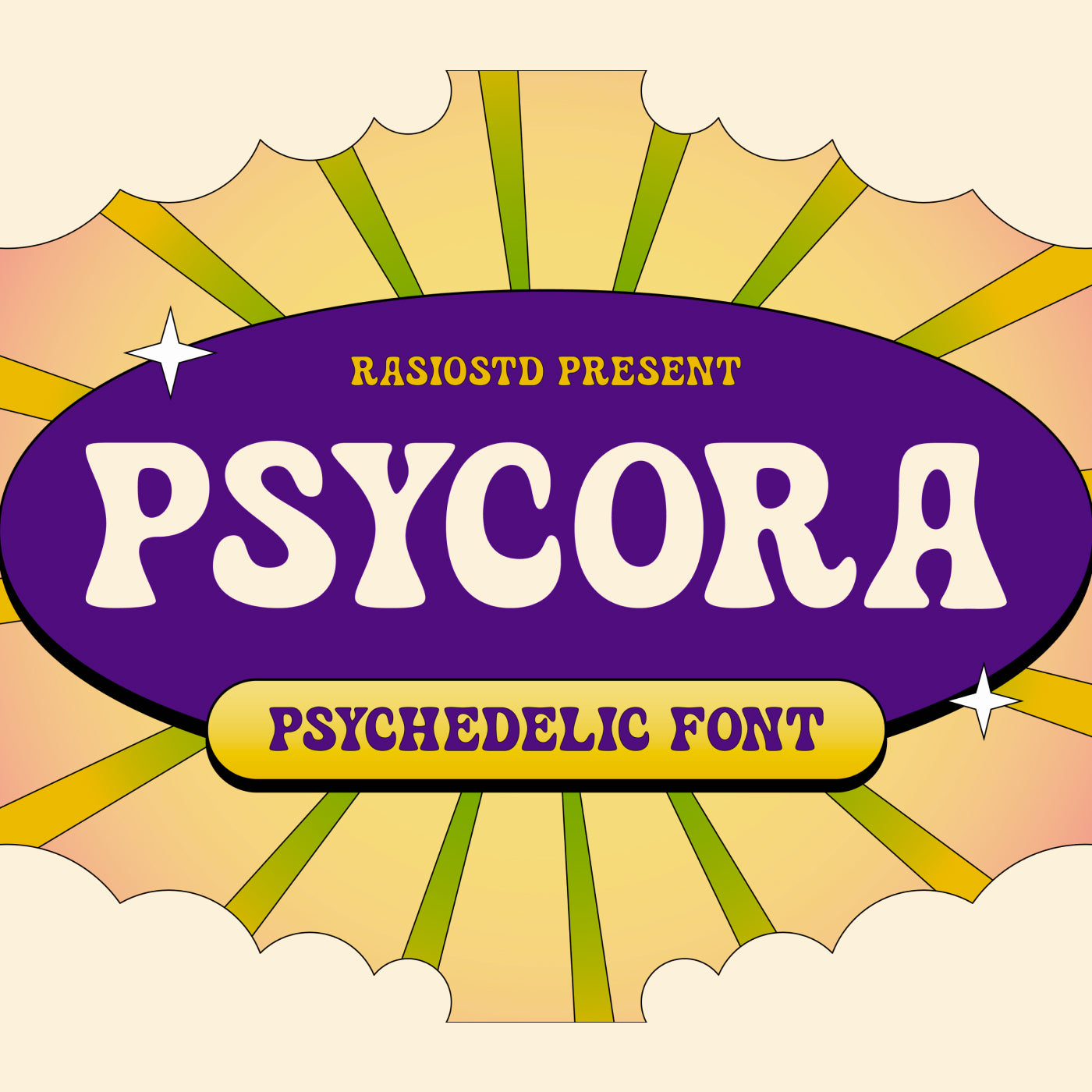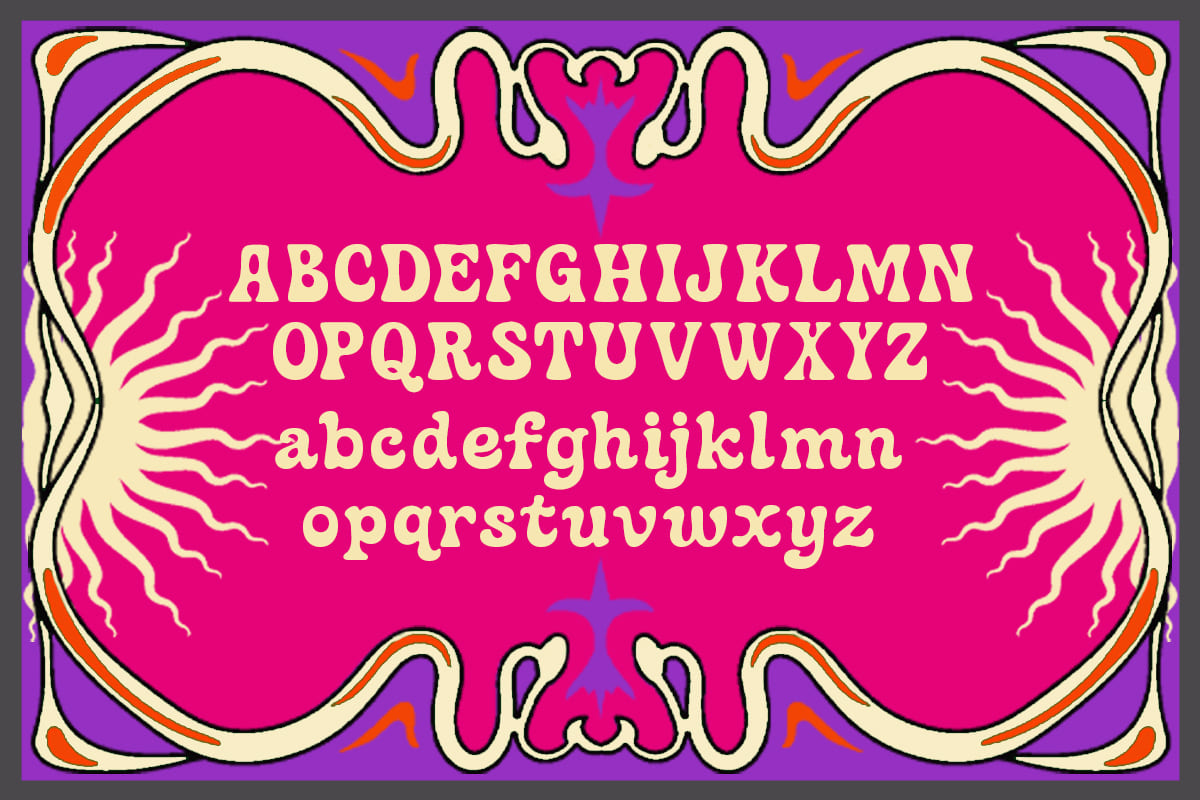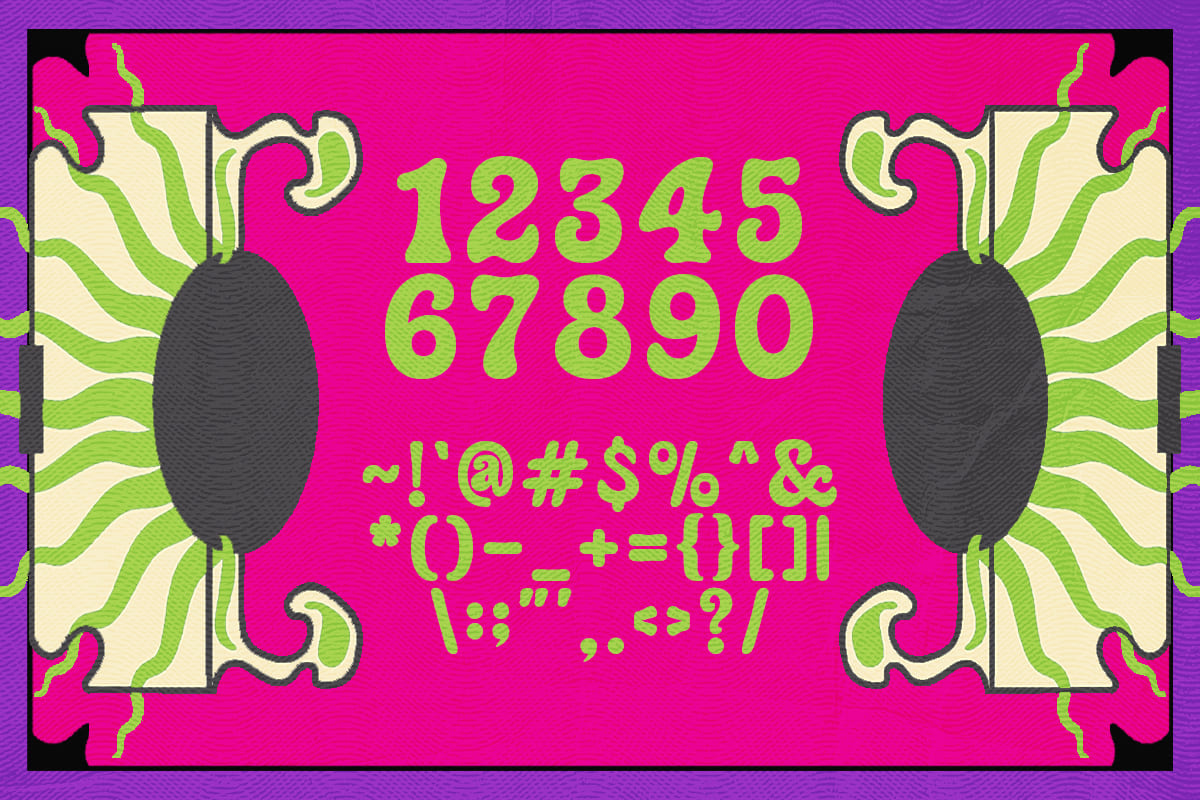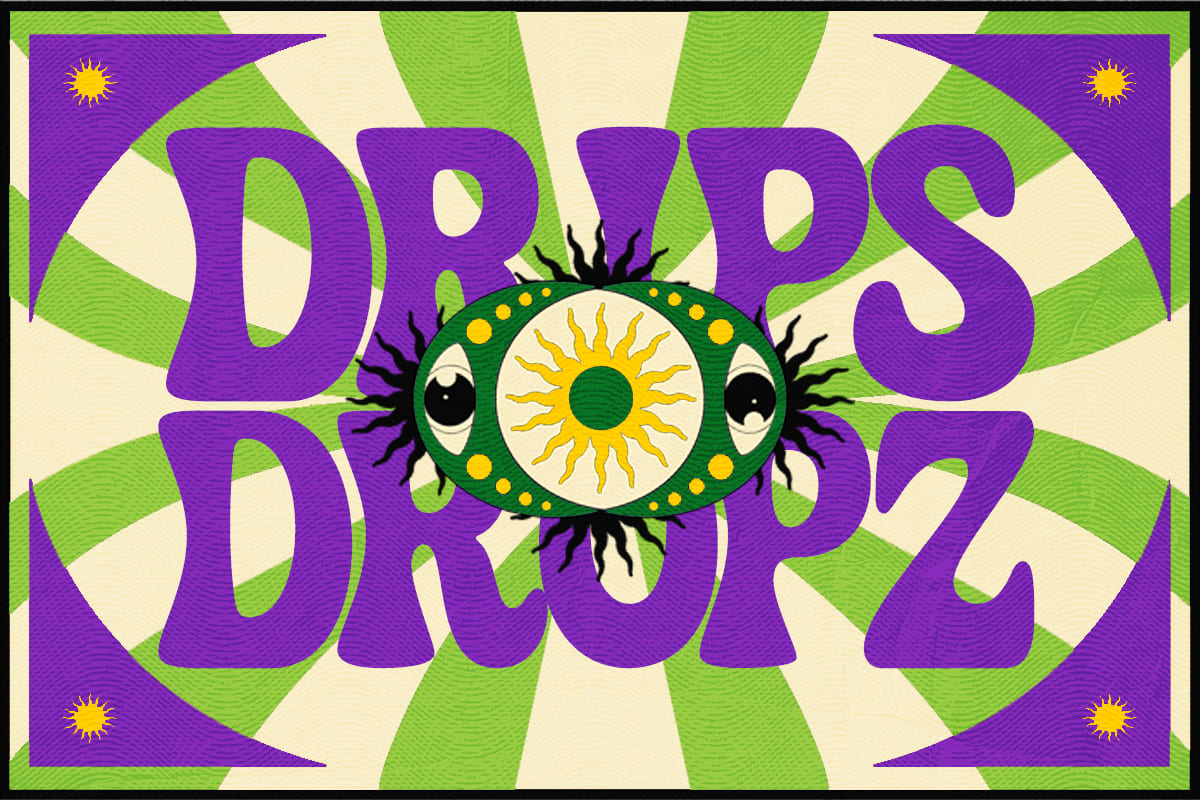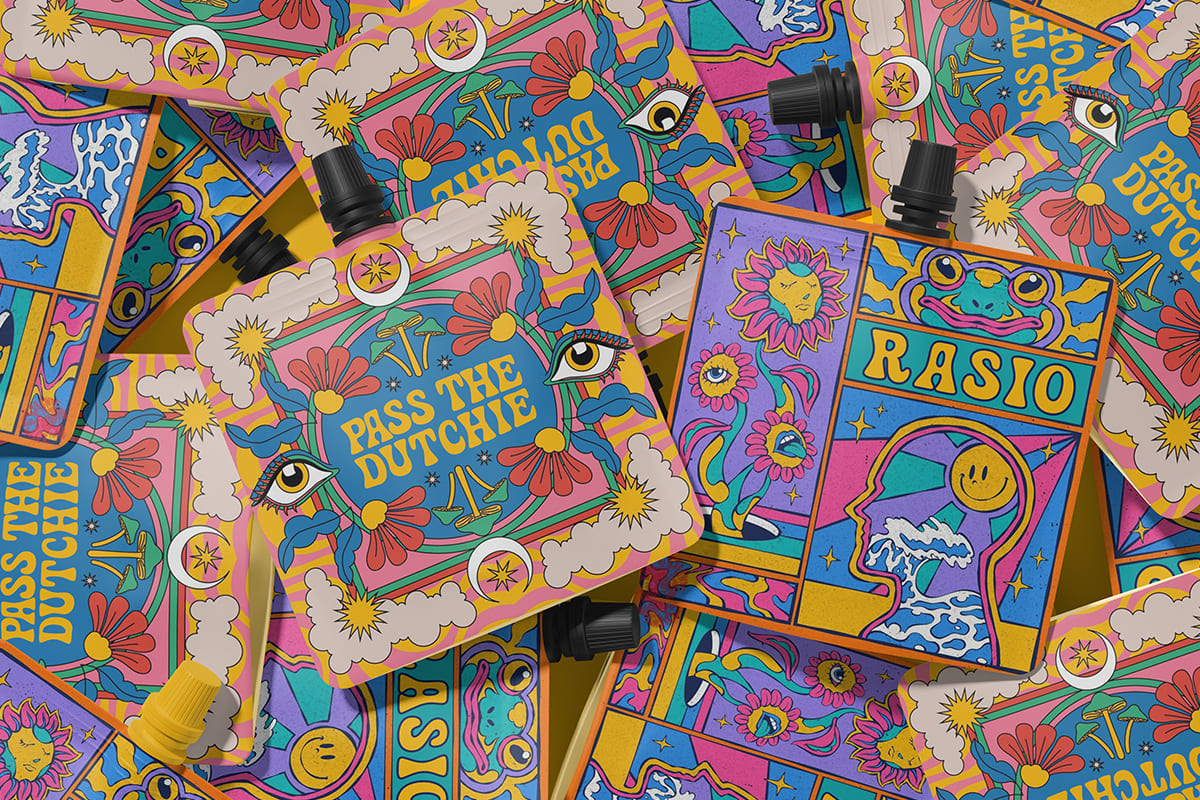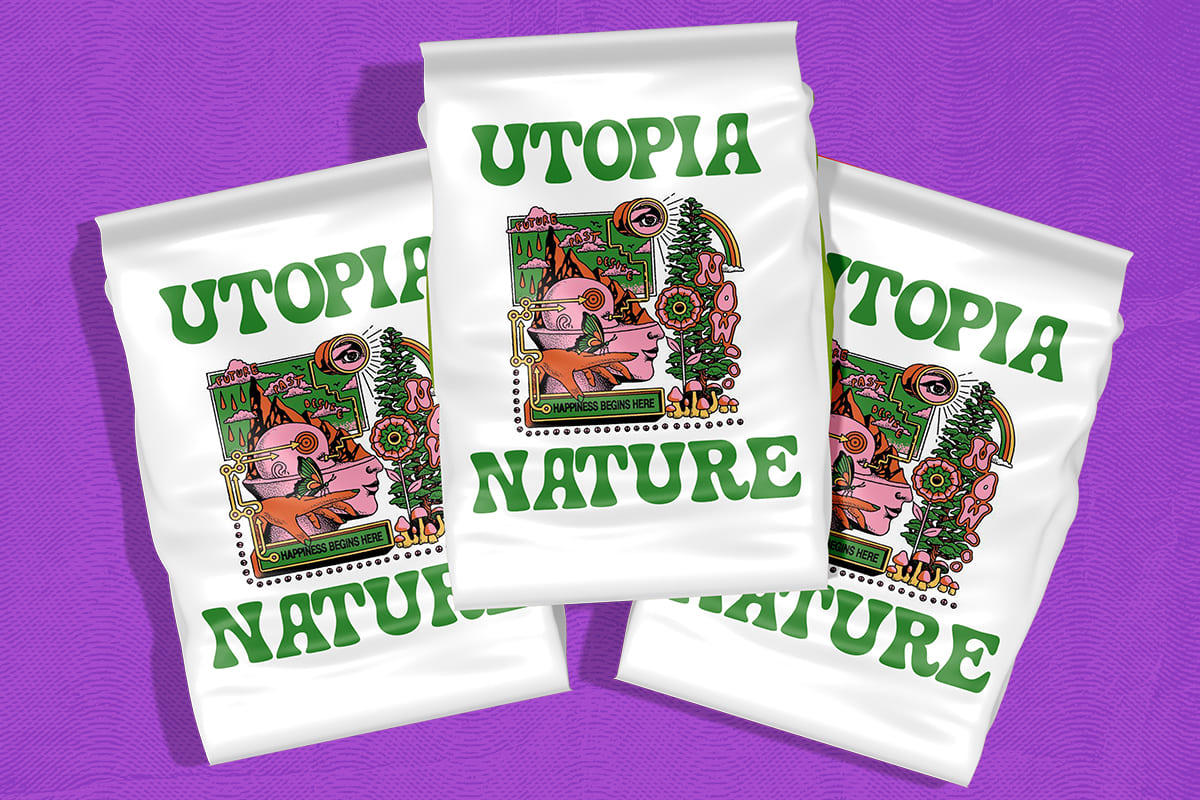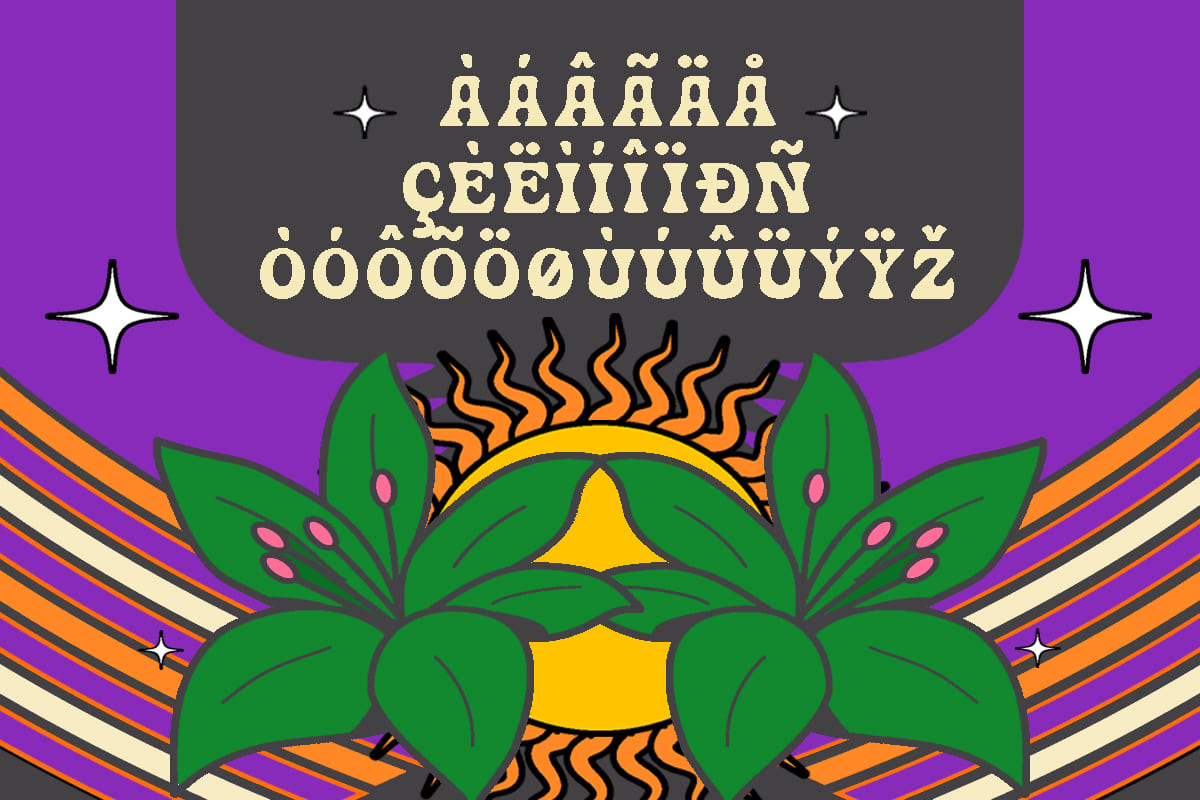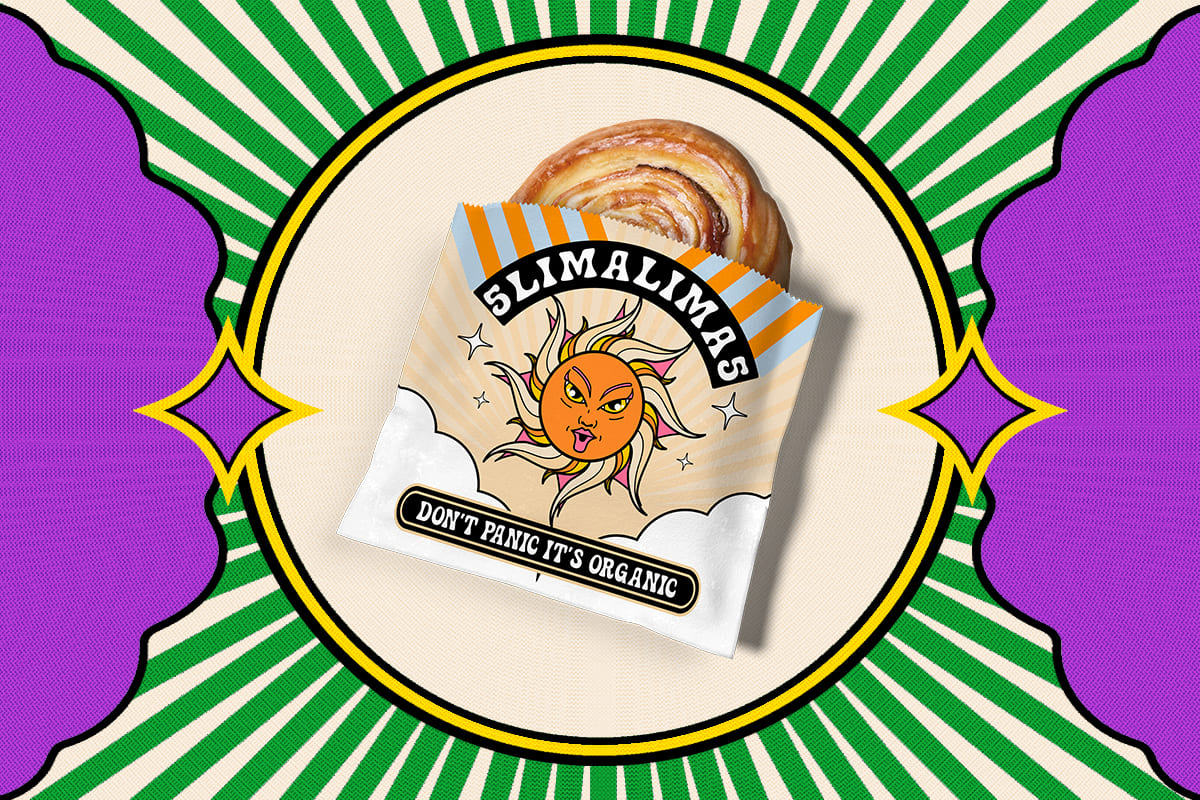
Psycora Psychedelic Font
Psycora Psychedelic Font captures the vibrant energy of 70s art and music culture through bold, wavy letterforms and fluid, organic shapes. Each character flows with groovy rhythm and expressive movement, making it perfect for eye-catching visuals and experimental typography. Designed with playful proportions and retro charm, Psycora brings a nostalgic yet artistic twist to modern creative projects.
Relevance and Use Cases is perfect for psychedelic posters, retro album covers, creative branding, funky packaging, festival design, social media artwork, and artistic projects inspired by 70s pop culture and colorful visual expression.
Psycora Psychedelic Font is a bold, wavy typeface with fluid, organic letterforms inspired by 70s design. It includes uppercase and lowercase characters, numerals, punctuation, and multilingual support, available in TTF, OTF, and WOFF formats.